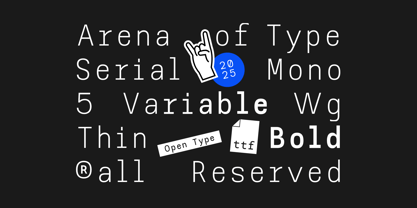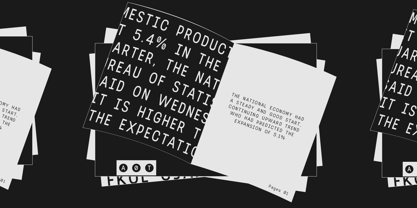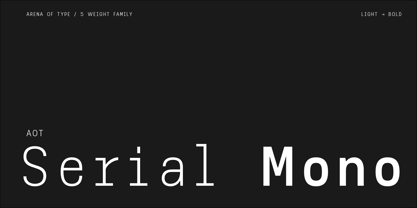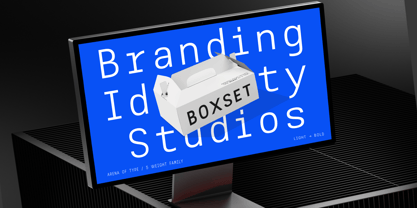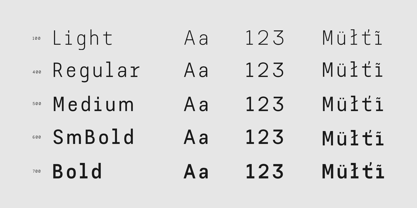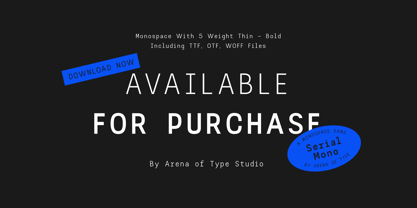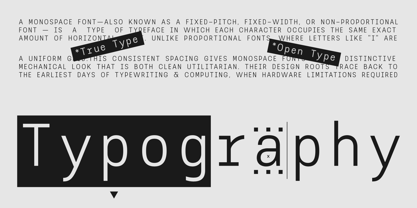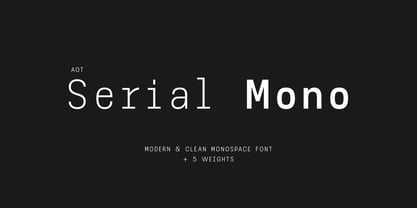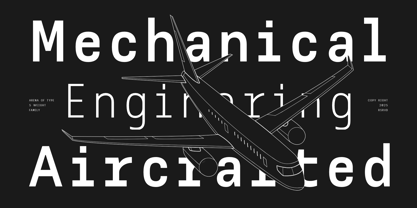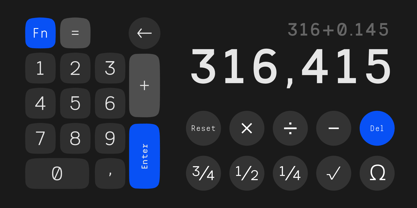
AOT Serial Mono
by Arena Of Type
The AOT Serial Mono Font Family was designed by Prio Nurokhim Aji and published by Arena Of Type. AOT Serial Mono contains 6 styles and family package options. More about this family
AOT Serial Mono - Modern And Clean Monospace Font
AOT Serial Mono is a modern monospaced typeface with a stylish and contemporary edge. Designed for precision and personality, this font blends clean structure with subtle character, making it perfect for code, branding, editorial layouts, and digital interfaces.
It comes in 5 weights. From Light to Bold. And includes a variable font file for maximum flexibility in your design workflow. Whether you're building a futuristic UI or designing a minimal poster, AOT Serial Mono delivers clarity with attitude.